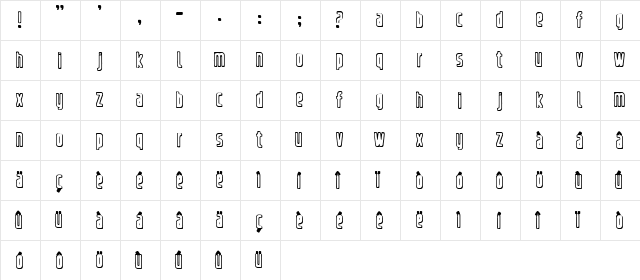
Refrigerator Outline Font Preview
Refrigerator Outline
Refrigerator Outline Font Details
| Style | Outline |
| Foundry | Fr餩ric Rich |
| Designer | Fr餩ric Rich |
Design Context for Refrigerator Typeface
Refrigerator brings ornamental detail and strong personality to headlines and identities, where visual impact matters more than quiet functionality.
Font Pairing: Pair with a clean neutral sans-serif for body copy to let Refrigerator's character lead without overwhelming the composition.
Pro Tip: Use Refrigerator exclusively at display sizes — it was designed to be seen, not read at length. Let a neutral companion handle body copy.